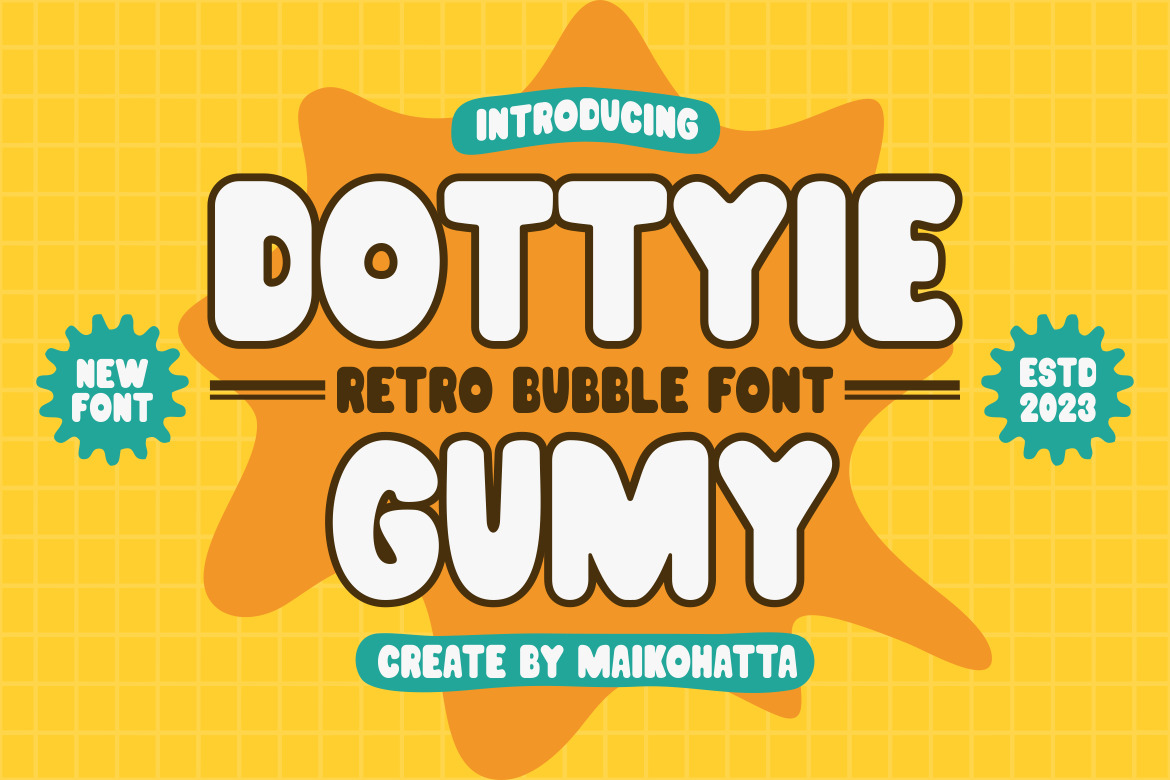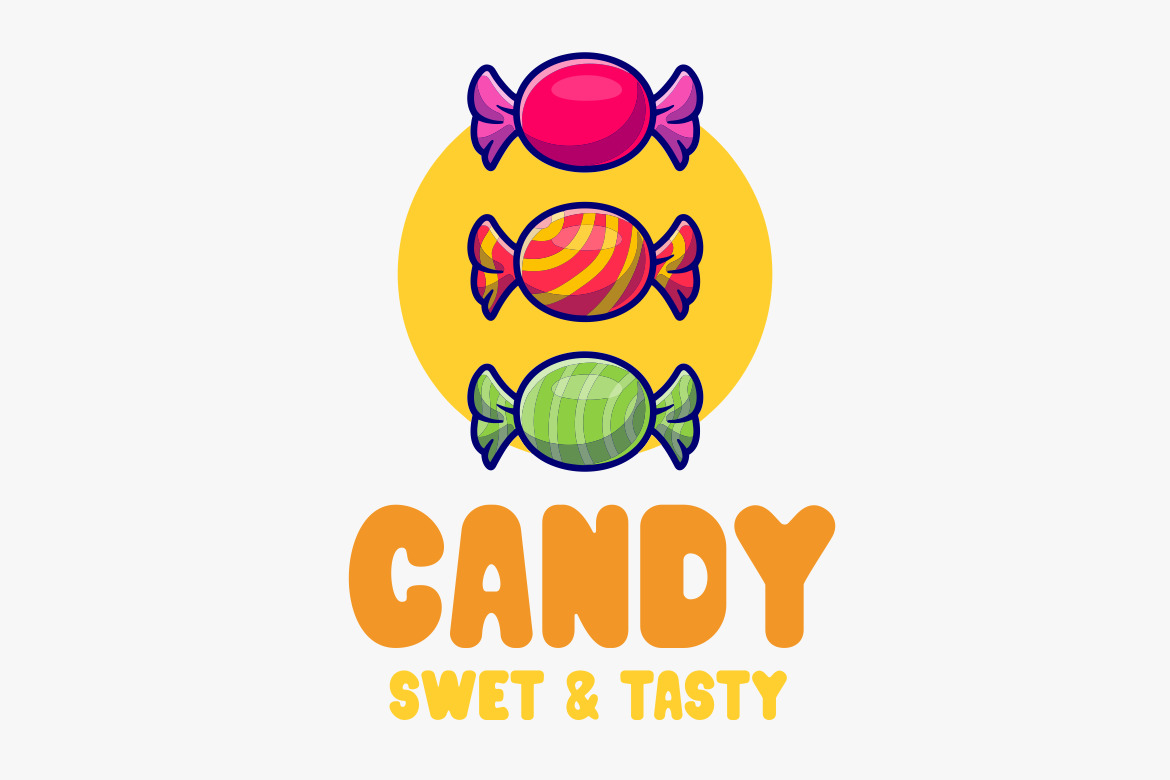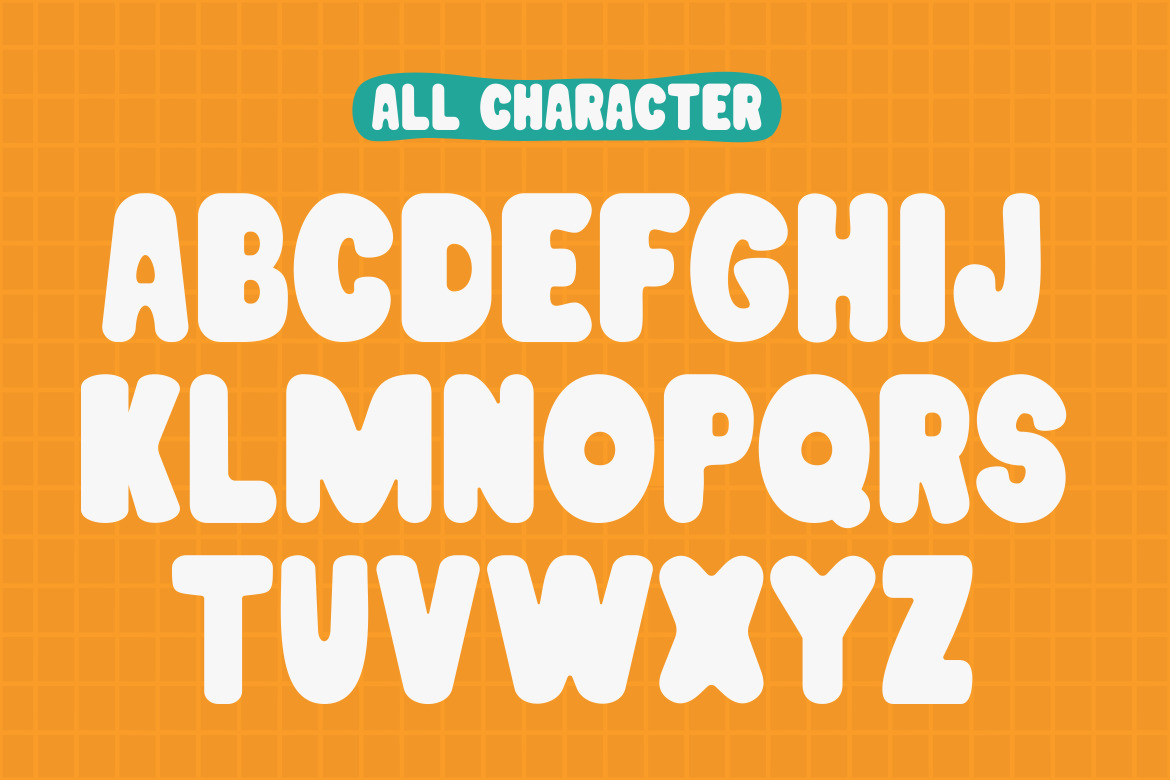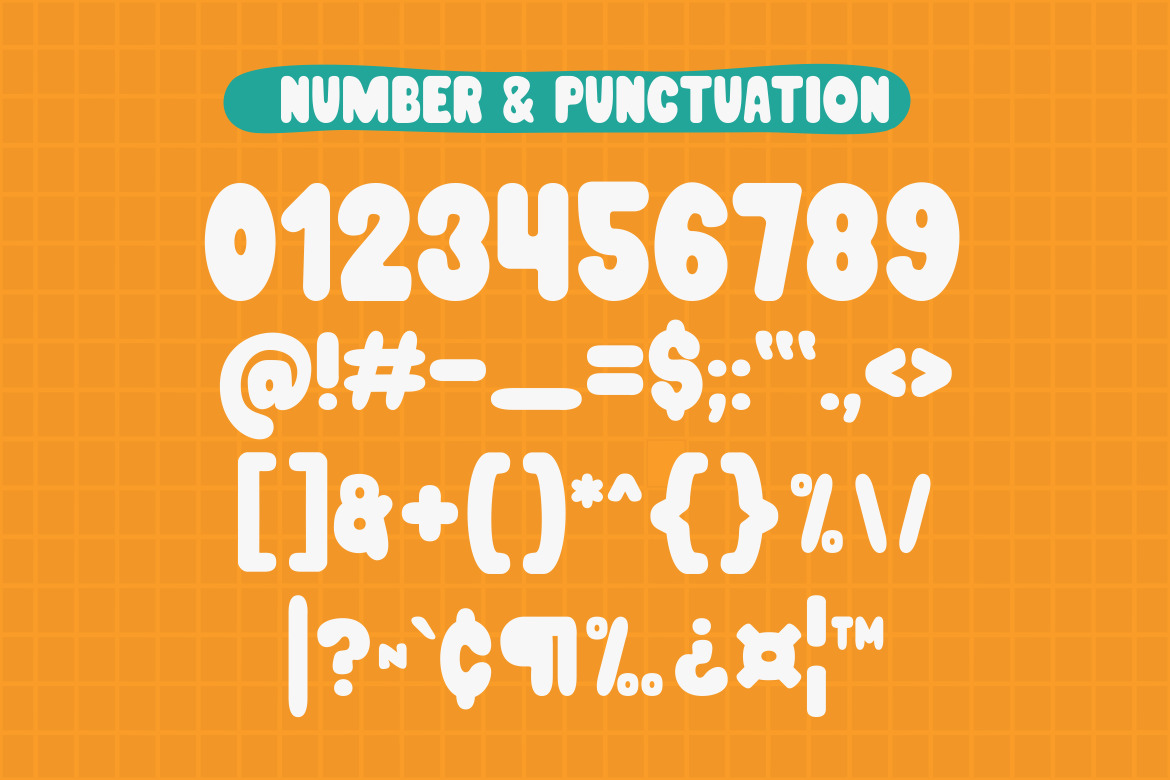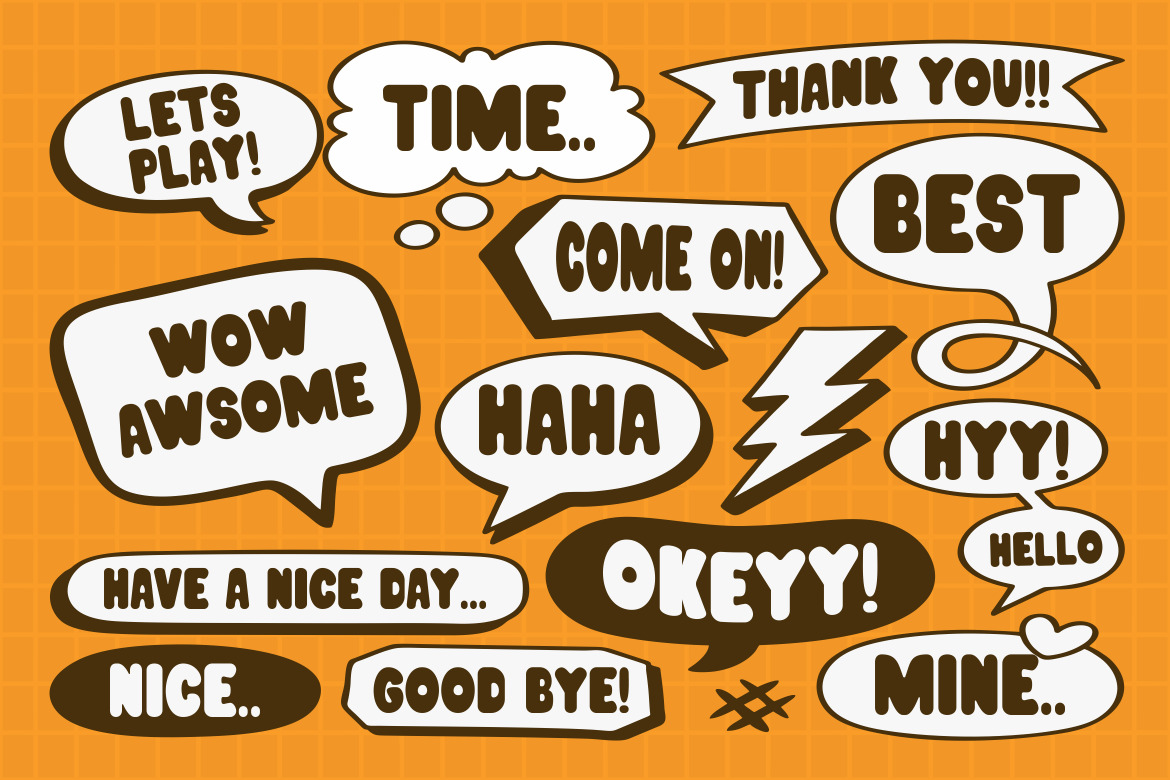
DOTTYIE GUMY - Retro Bubble Font
This font has round and wide letter shapes with curved corners, giving a soft and friendly impression. Because of this, this font is often chosen for designs aimed at children or those with a playful nature, as it conveys a more youthful and cheerful feel.